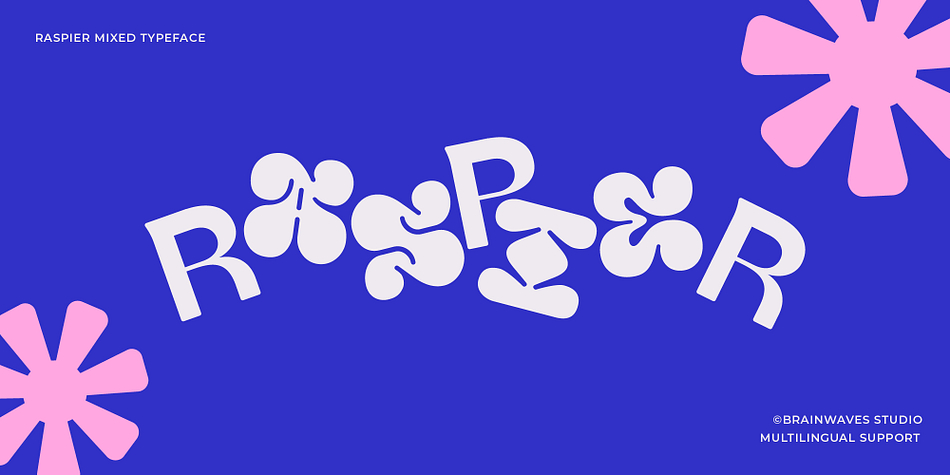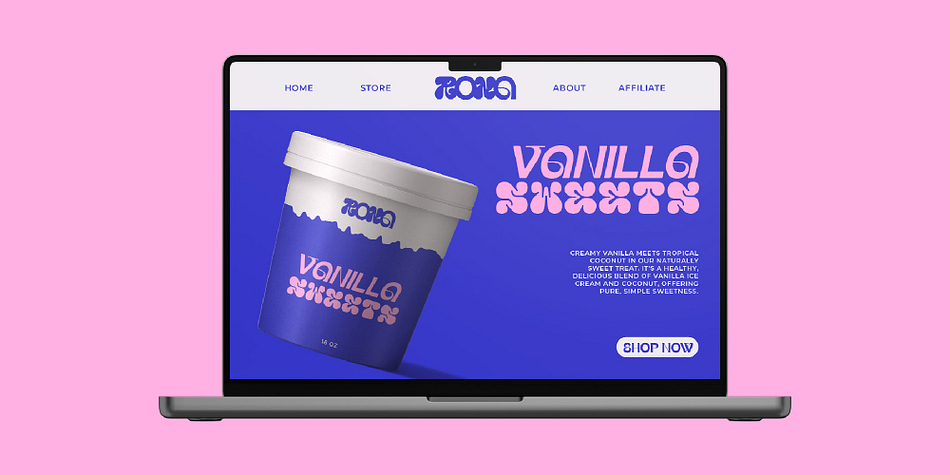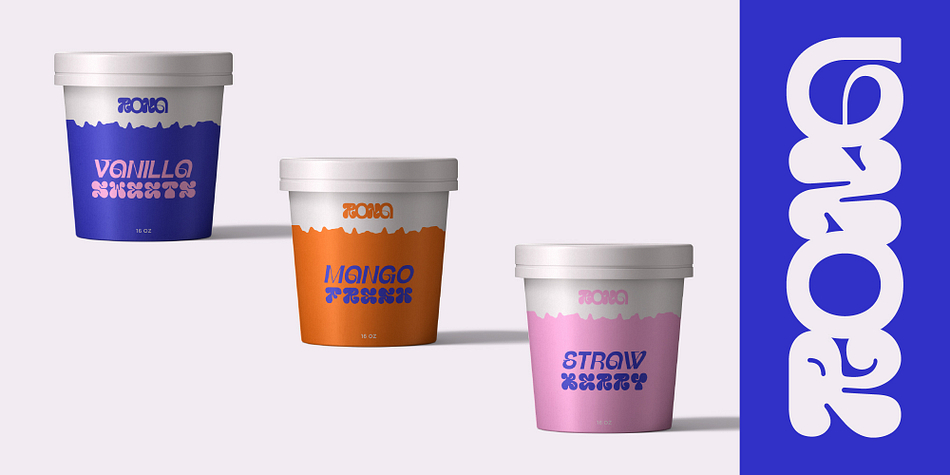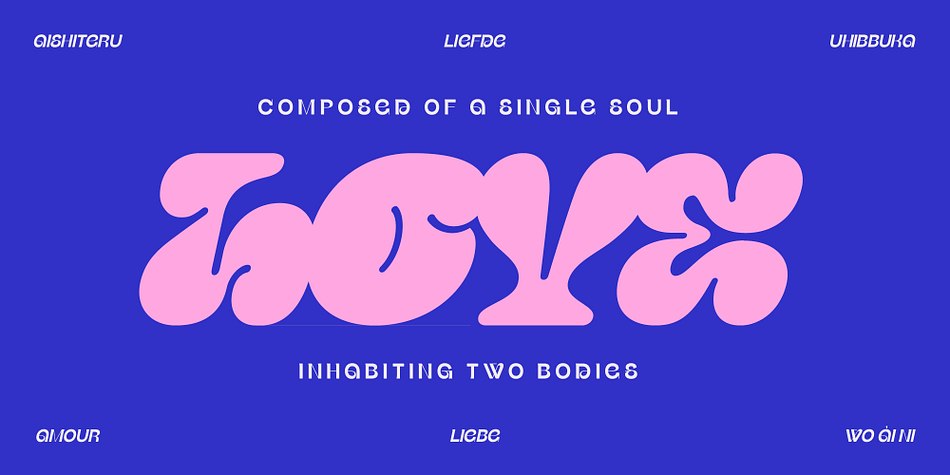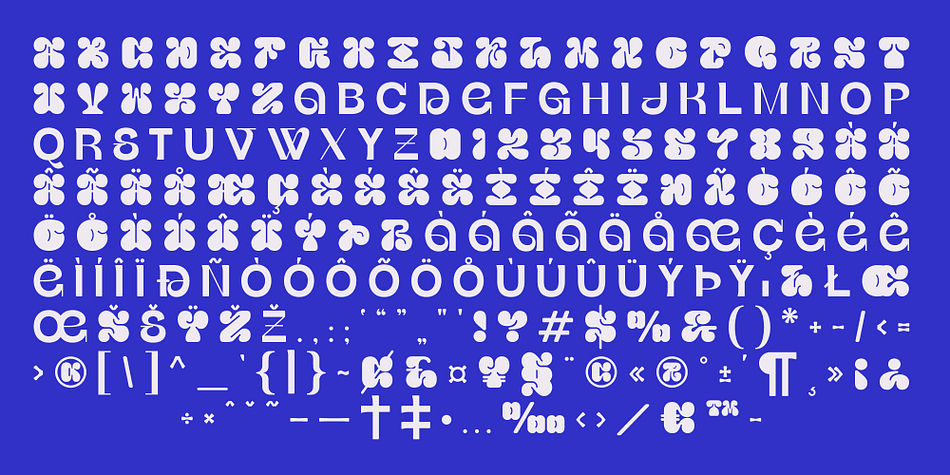
Raspier
Designed by Lucky Fitriadi, Raspier is a display sans font family. This typeface has two styles and was published by Brainwaves Studio.
Introducing Raspier, a truly distinctive font that brings a fresh, contemporary feel to any design. It masterfully blends the clean, approachable lines of a rounded sans-serif with the playful, engaging charm of bubble letterforms. The result is a typeface that feels both modern and friendly, sophisticated yet unpretentious.
Raspier stands out with its inviting softness and unique character, ensuring your message is not just seen, but felt. The rounded edges contribute to excellent legibility and a welcoming aesthetic, while the subtle bubble influences add a memorable touch of personality.